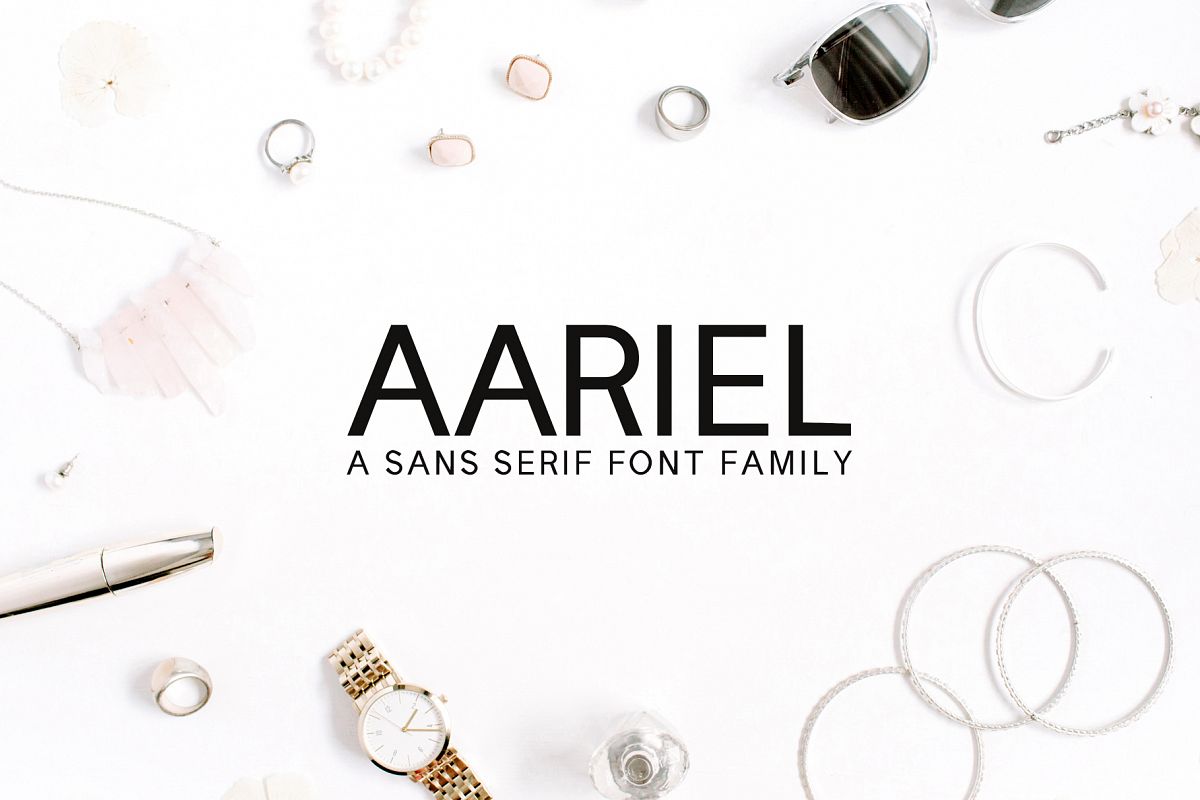
Aariel Sans Serif 7 Font Family Pack
Aariel Sans Serif font is a set of 7 weights font family. Aariel is good for making creative templates and stationary. Aariel suits best for modern / clean designs, logos, headlines, banners and templates etc. It looks gorgeous in all caps with a wide-set spacing if you want to try a classy look, or beautiful on its own in capital and lowercase letters for something completely timeless.Included Features:
• Regular, Thin, Light, Black, Outline, Bold, and Extra Bold Weights
• Extras: Uppercase Multilingual Letters, Lowercase Multilingual Letters, Numbers & Punctuation + Alternatives.